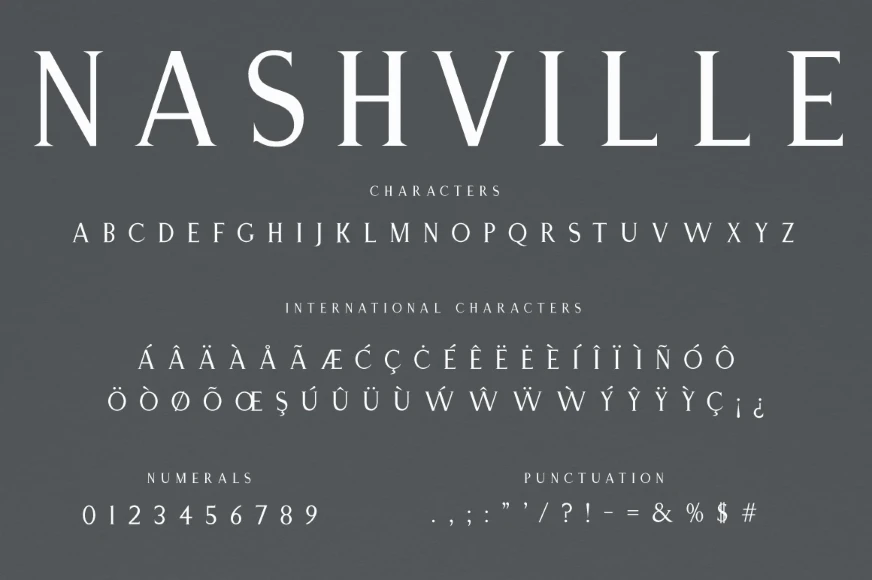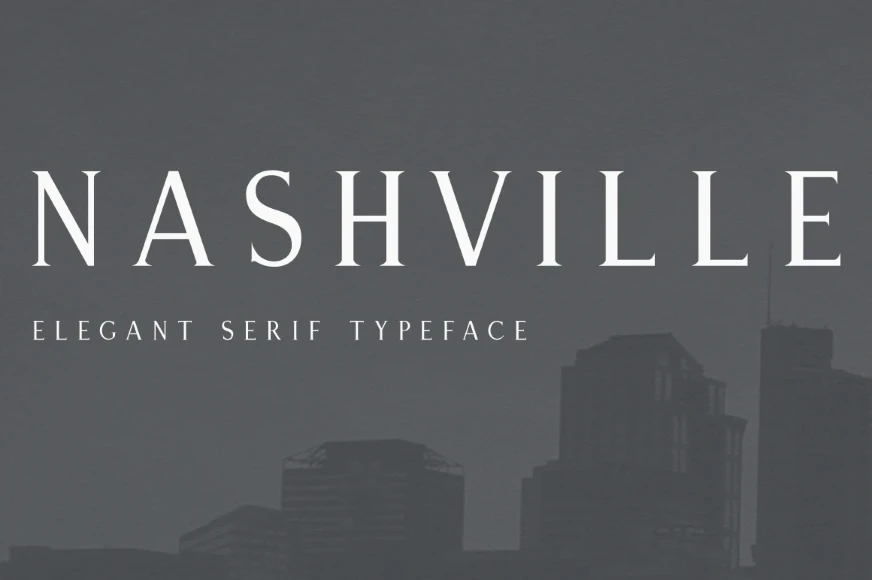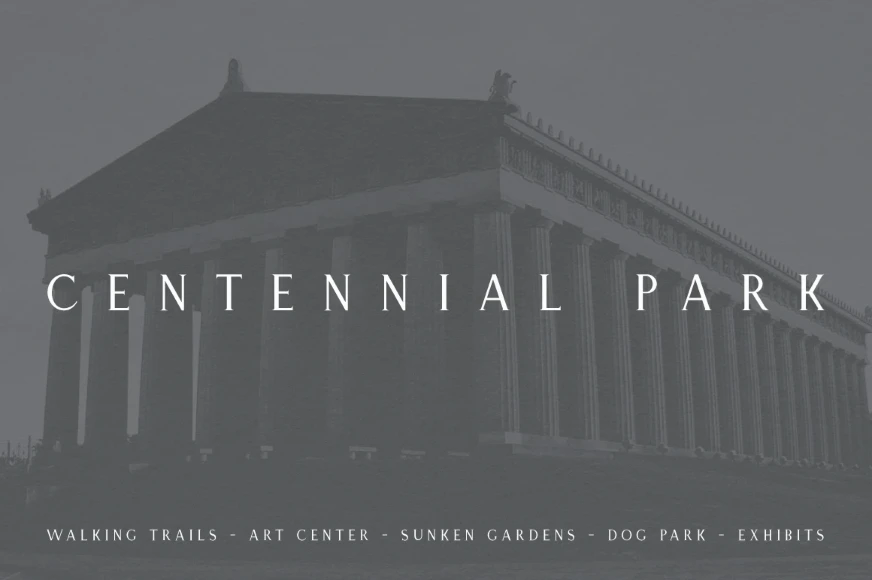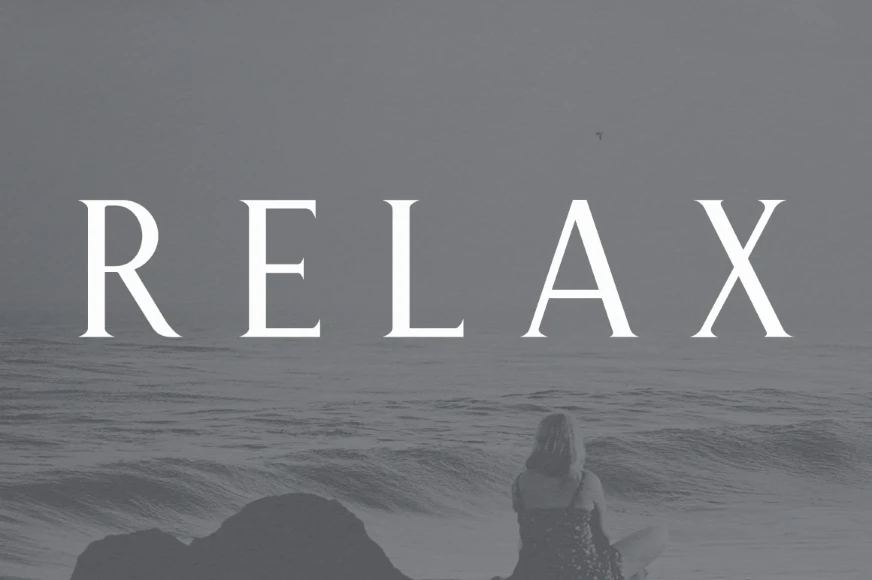
Nashville
Nashville Regular
Nashville is an elegant all-caps serif typeface perfect for creating eye-catching, classically balanced typography. With subtle contrast and the sharpest serifs, it is designed to be readable, whether in headlines or subheads. Well-suited for crafting wedding invitations, logos, book covers, film titles, or any project that requires something stately or luxurious. Add a bit of polish to your designs with Nashville.